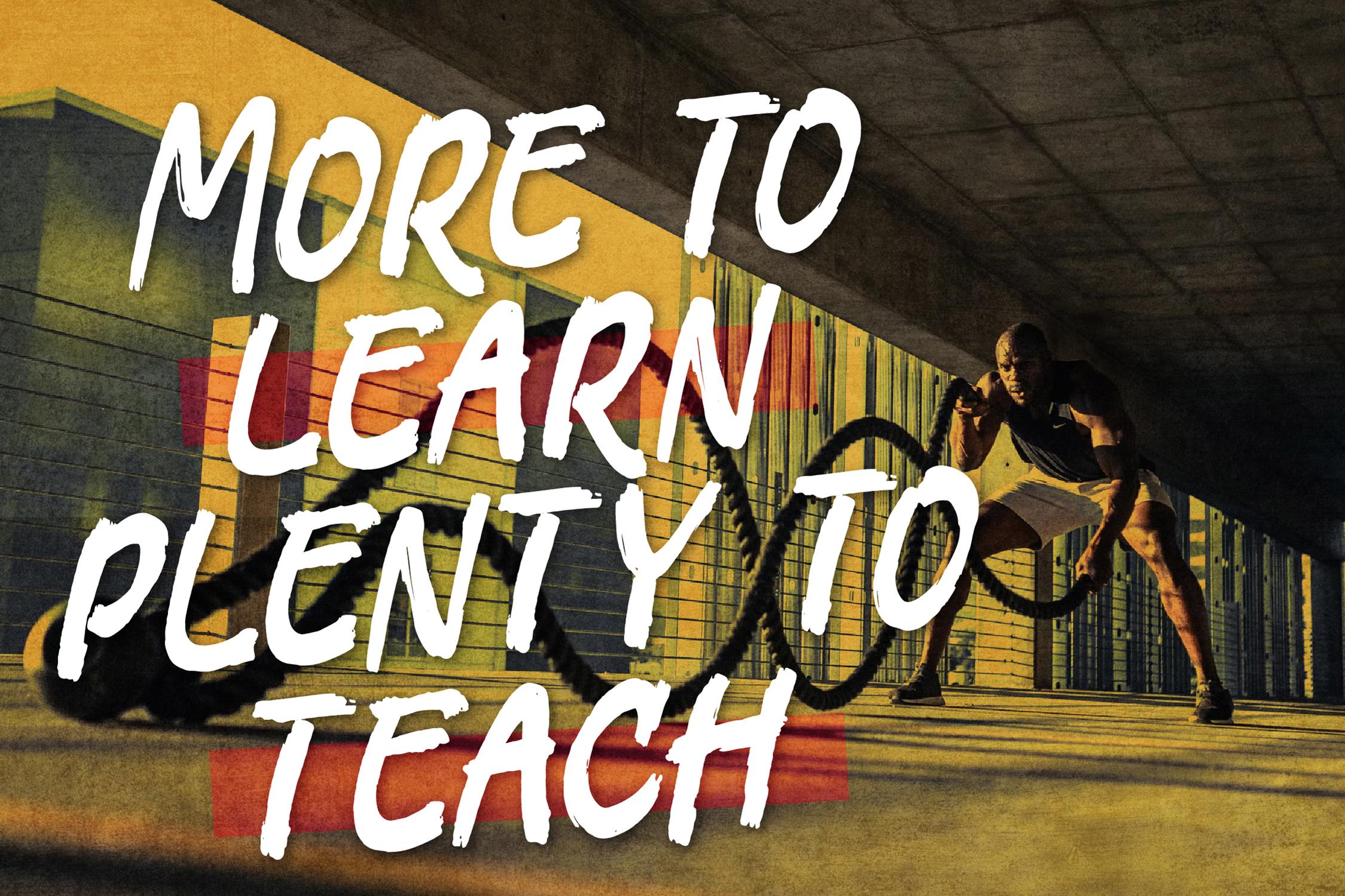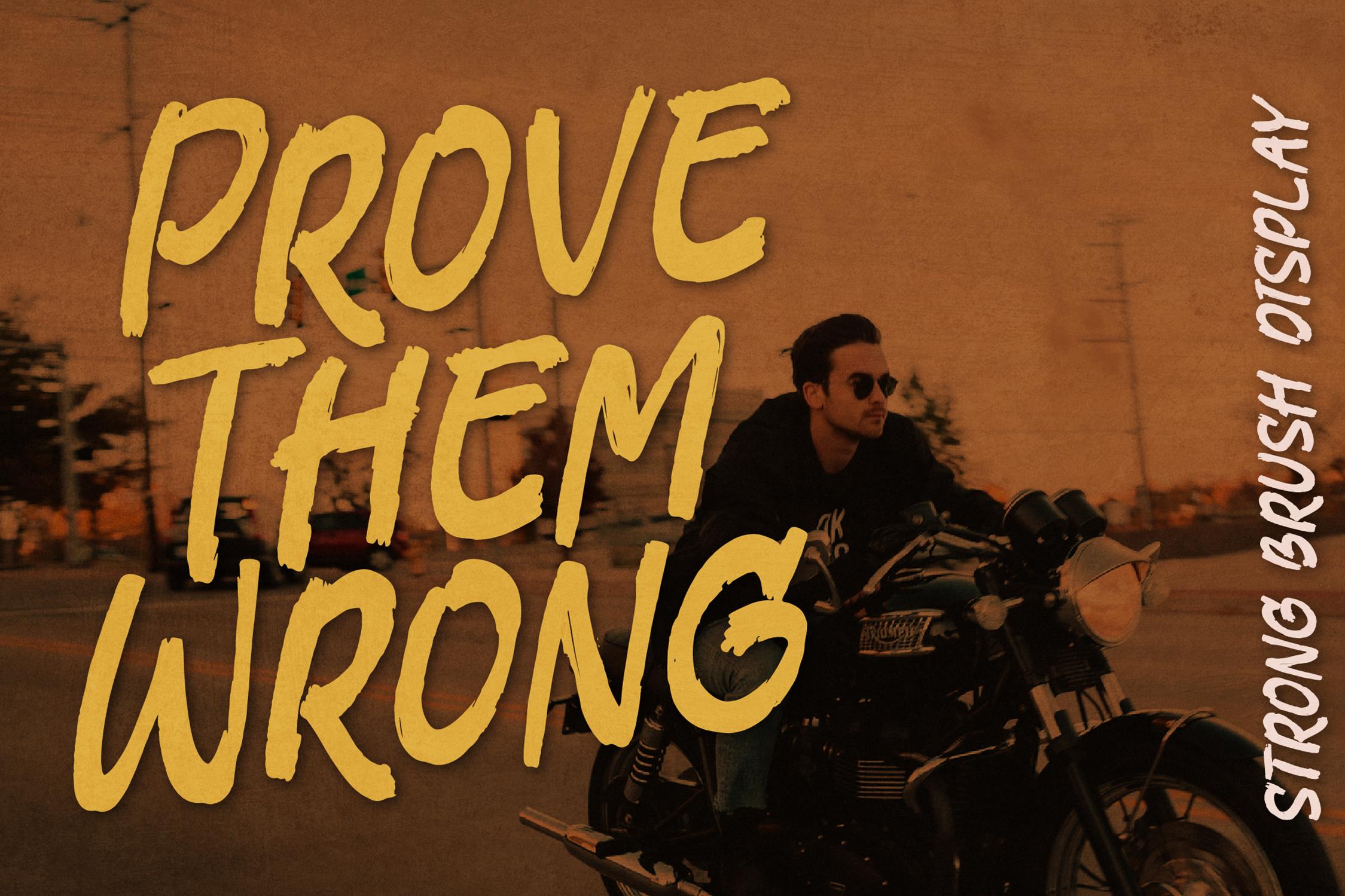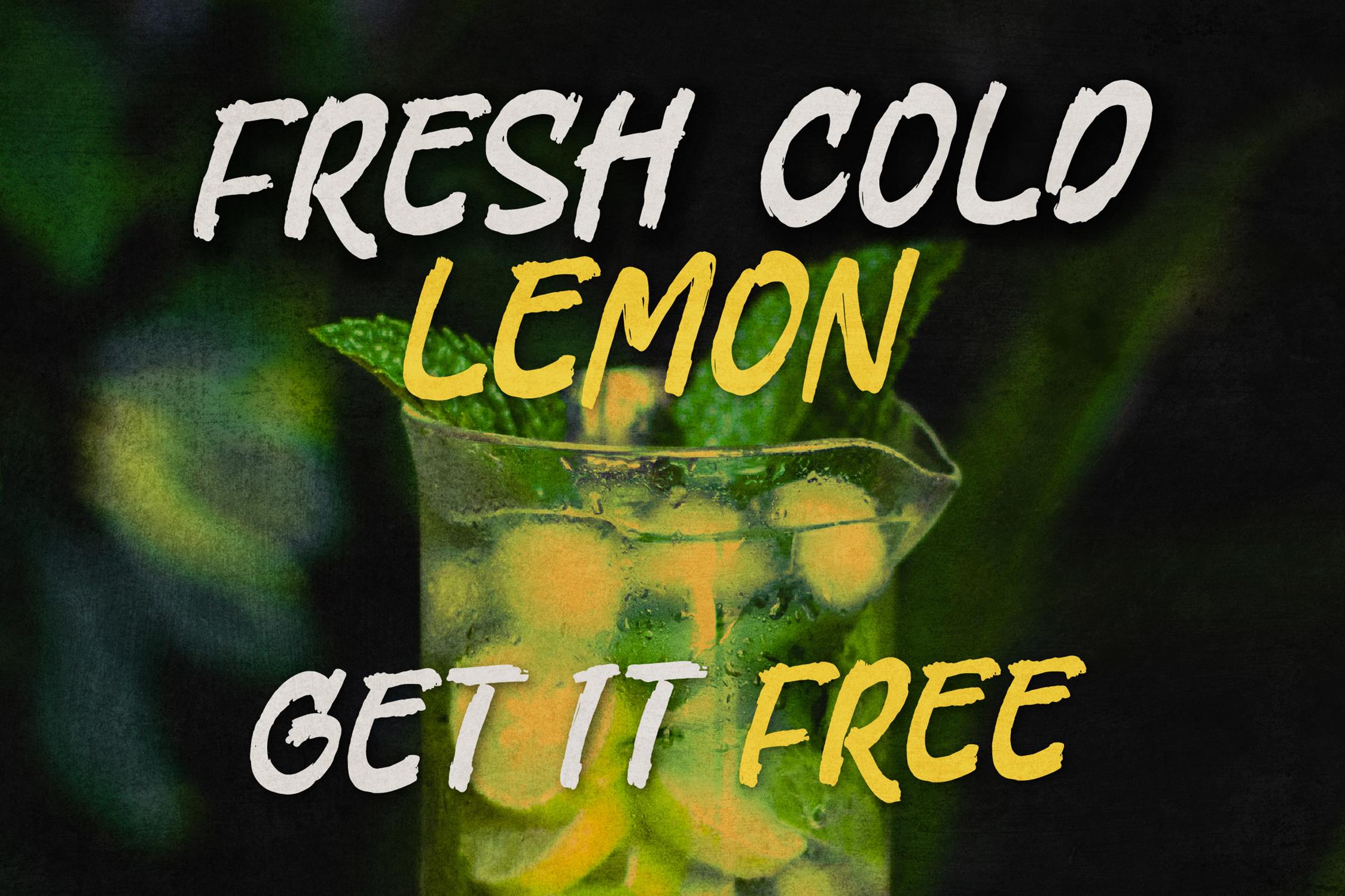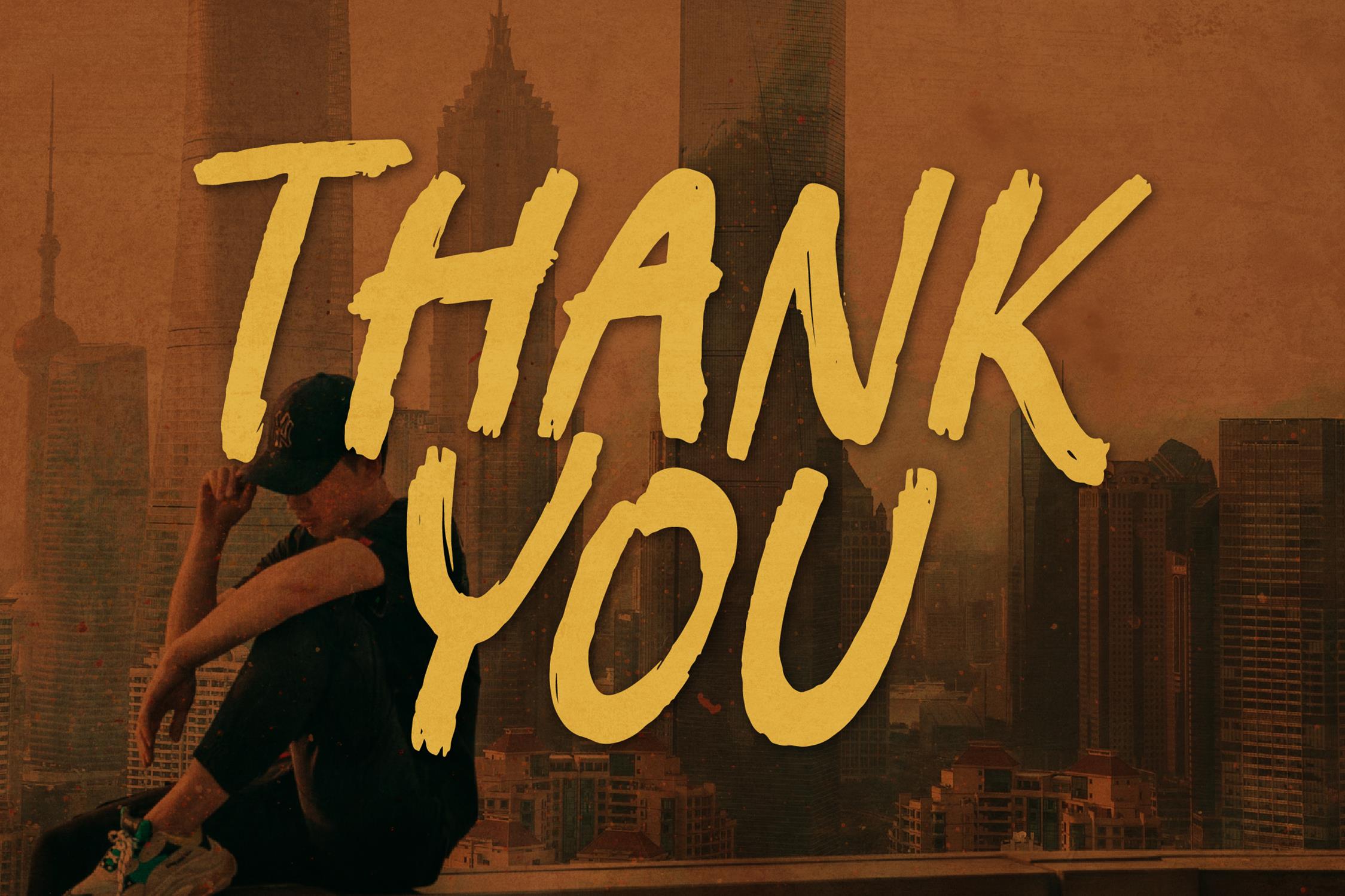
FAST RUSH Script Font
It’s a strong brush display font, suitable for any projects such as: logos, branding projects, homeware designs, product packaging, mugs, quotes, posters, shopping bags, t-shirts, book covers, name card, invitation cards, greeting cards, label, photography, watermark, special events, and all your other lovely projects that need a beautiful script taste.